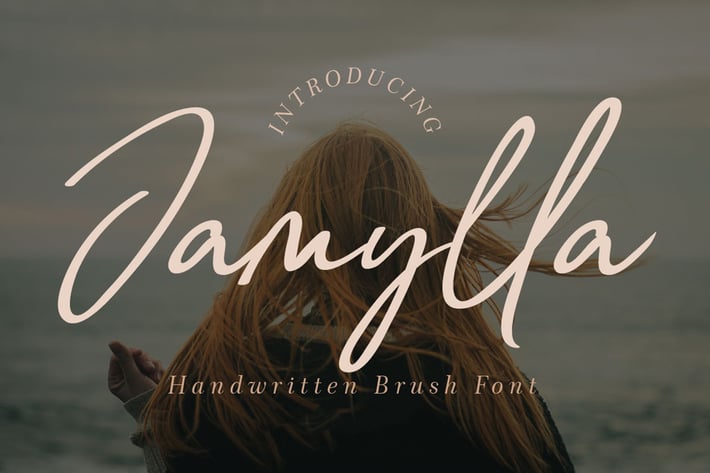
Jamylla - Brush Script Font
Jamylla is a casual and beautiful brush script font. It looks stunning in various designs that require a personal touch, such as wedding invitations, thank-you cards, greetings, wedding, cards, logos, and more.
Uppercase, Lowercase, Numerals & Punctuations
Ligature & Alternate